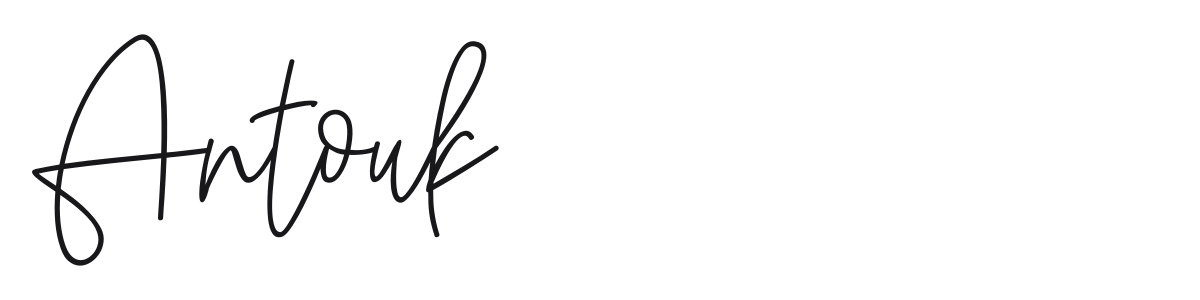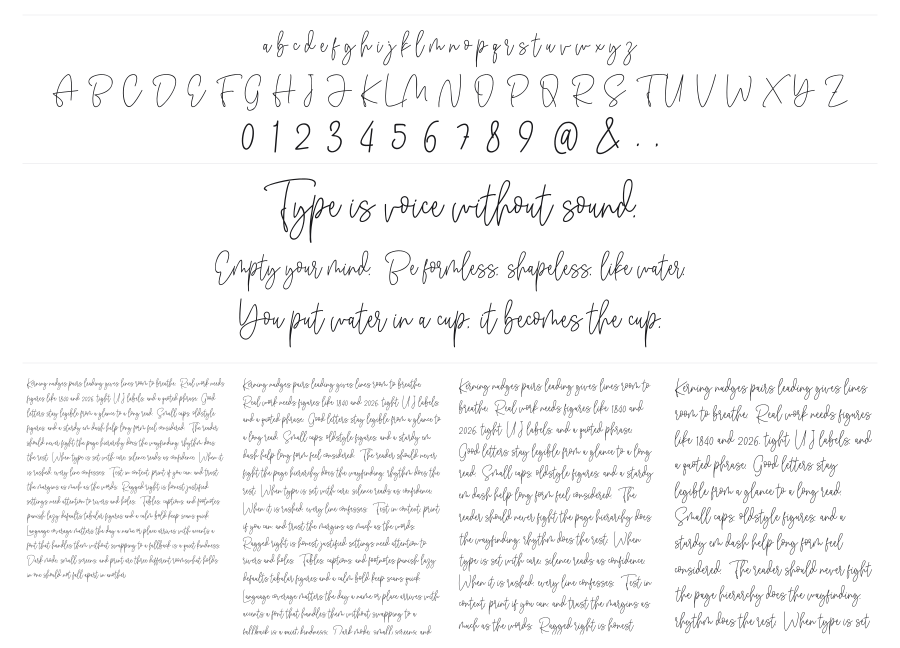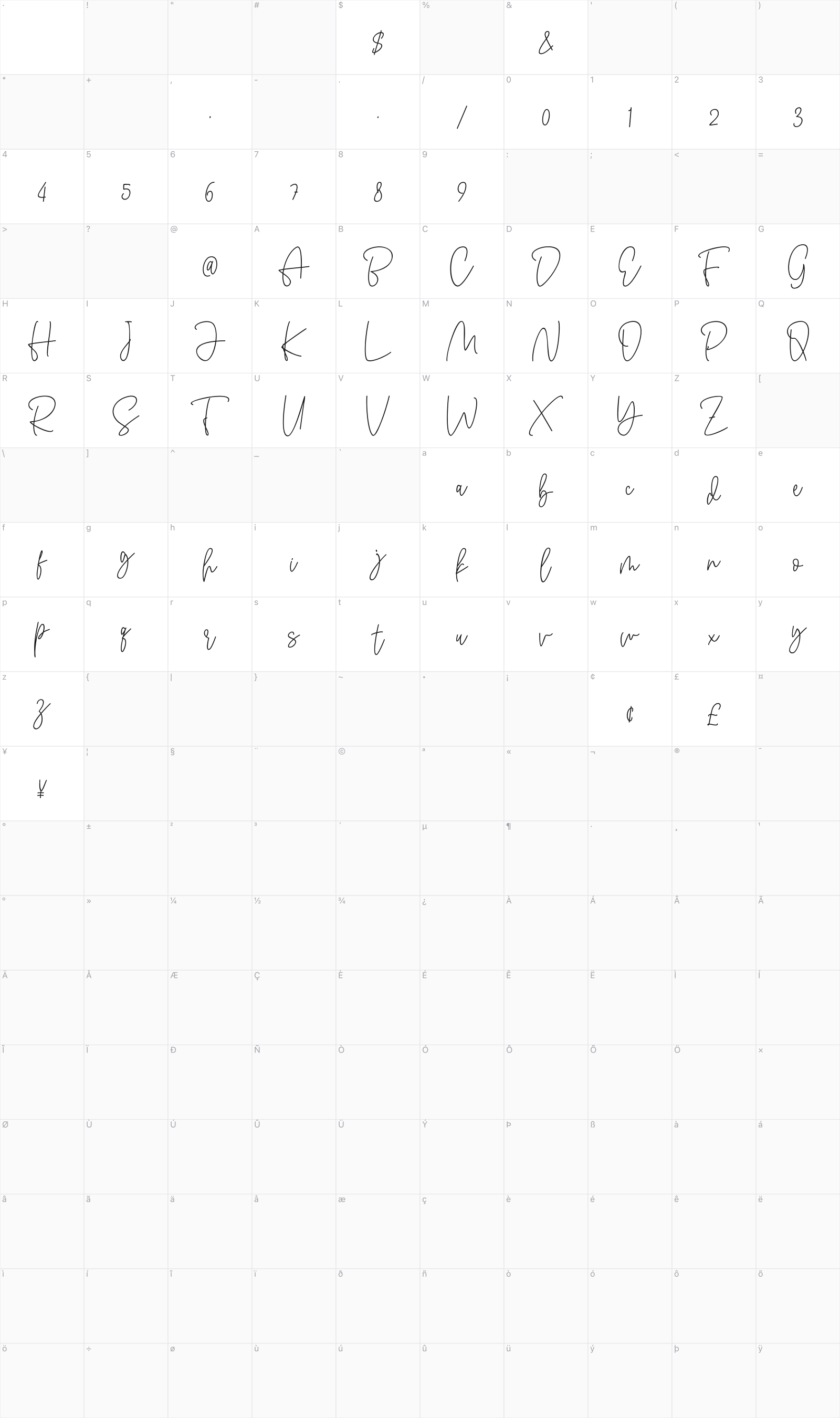
Antouk
Antouk is a thin signature-style script with flowing, looping connections and a light, airy hand. The generous ascenders and descenders sweep freely, giving text a spontaneous feel that still reads as refined. It works best at large sizes where those long curves can breathe.